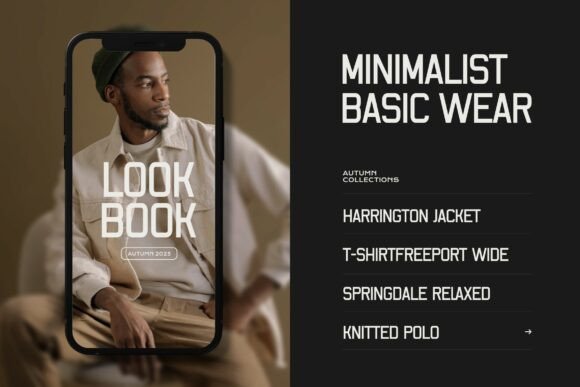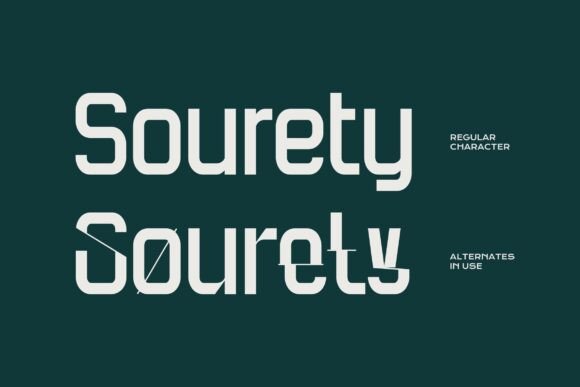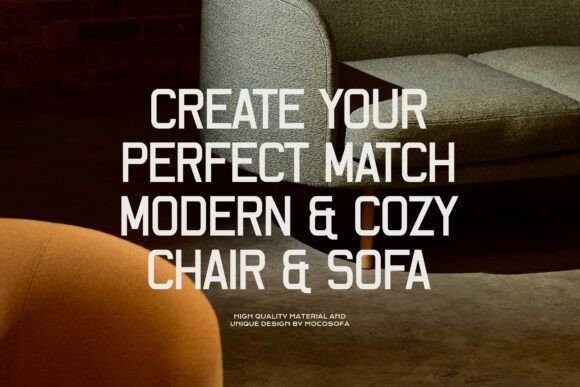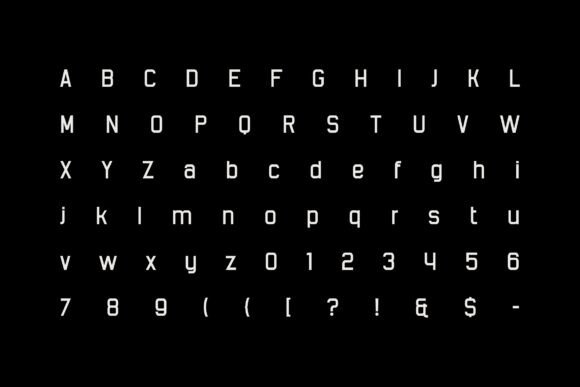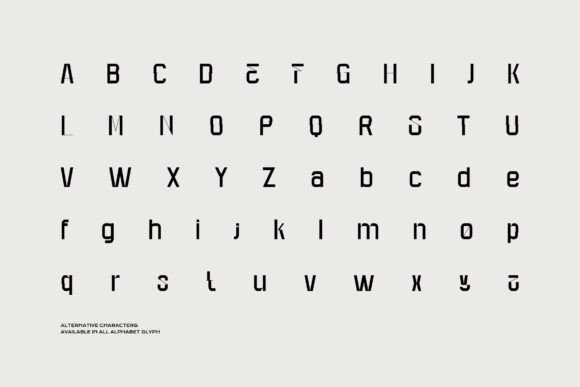
I’ll never forget the time I was working on a project for a tech startup, trying to create a bold and modern look for their landing page. I had spent hours browsing through font libraries, but nothing seemed quite right. That was until I stumbled upon Fuigant Font. Its striking geometric construction and unique experimental cuts immediately caught my attention. I knew I had found the perfect fit. In this article, I’ll share my experience with Fuigant, its features, and how to make the most of this stunning display typeface.
Fuigant Font: A Modern Display Typeface
Fuigant is a modern display typeface designed for bold statements and creative projects. Featuring a striking combination of geometric construction and unique experimental cuts, Fuigant stands out with its contemporary character and futuristic flair, making it equally at home on a tech startup’s landing page or a high-end furniture lookbook.
- Unique and modern design that grabs attention ✅
- Geometric construction and experimental cuts for a futuristic feel 🔮
- Perfect for bold statements and creative projects 📢
- Works well on both digital and print materials 📊
- May not be suitable for body text due to its bold and experimental nature ⚠️
- Limited use of OpenType features, but still offers some stylistic alternates 📝
The Story Behind Fuigant
Fuigant was designed by a team of typographers who wanted to create a modern display typeface that would stand out in the digital age. Inspired by the geometric and experimental designs of the past, they crafted Fuigant to be a bold and futuristic font that would make a statement. Whether used for a tech startup or a high-end furniture lookbook, Fuigant is sure to turn heads.
Q: What is Fuigant Font best used for?
A: Fuigant Font is best used for bold statements and creative projects, such as headlines, titles, and promotional materials.
Q: Is Fuigant suitable for body text?
A: No, Fuigant is not suitable for body text due to its bold and experimental nature. It’s best used for headlines and titles.
Q: Is Fuigant available in different weights and styles?
A: Fuigant is available in a single weight, but it offers some stylistic alternates and OpenType features to add more creativity to your design.